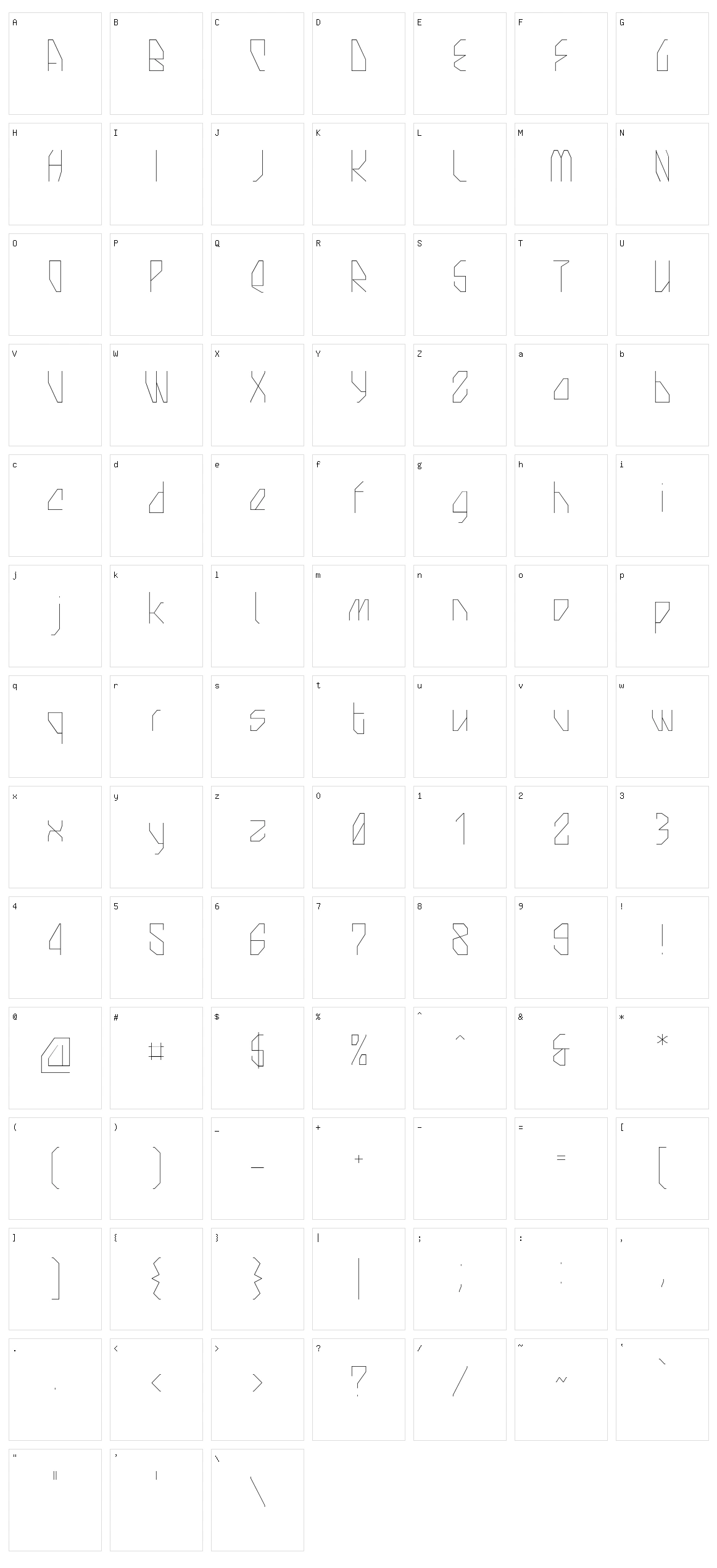
The free font Snowstreet is carefully designed by Mans Greback, showcasing a thoughtful balance of creativity and usability and falls under the Square font style. When you download the ZIP file, it contains only 1923.7 KB of font files, making it lightweight and quick to download. Please review the license details below to understand permitted usage and distribution rights. If license information is not available, we recommend using this font for personal projects only or contacting the author directly for commercial usage permissions.